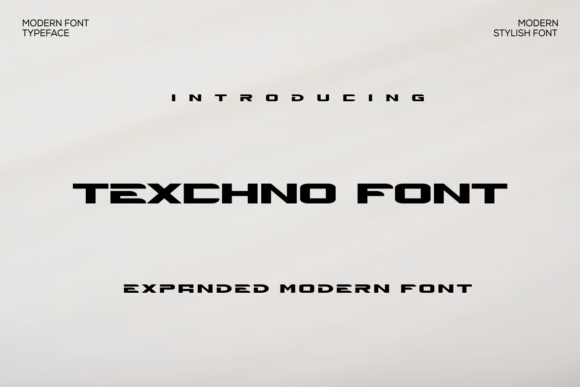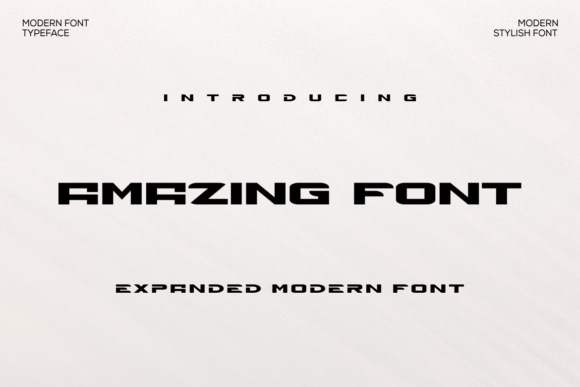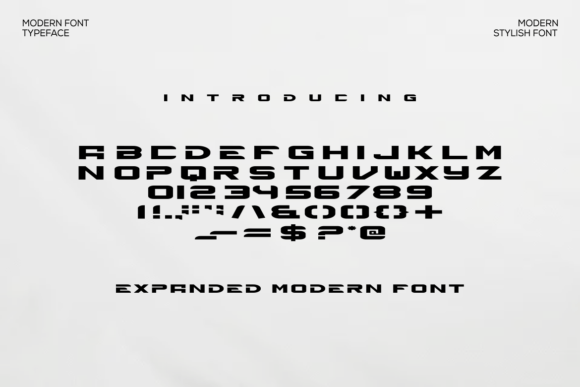
Introduction to Moxgel Font
Moxgel is a modern font that looks sleek and stylish.
It’s like the font version of a fancy sports car, with smooth lines and bold edges Perfect for grabbing attention in posters, headlines, or logos.
Key Features of Moxgel Font
Why Choose Moxgel Font?